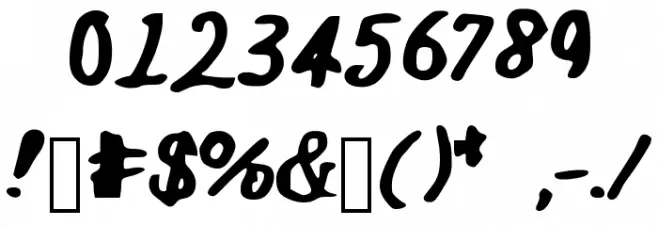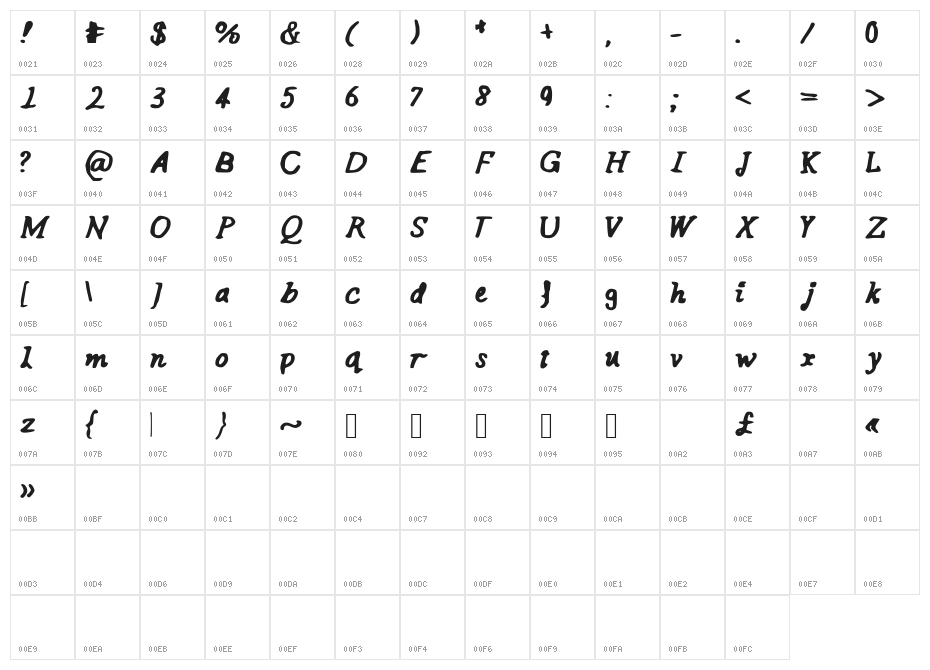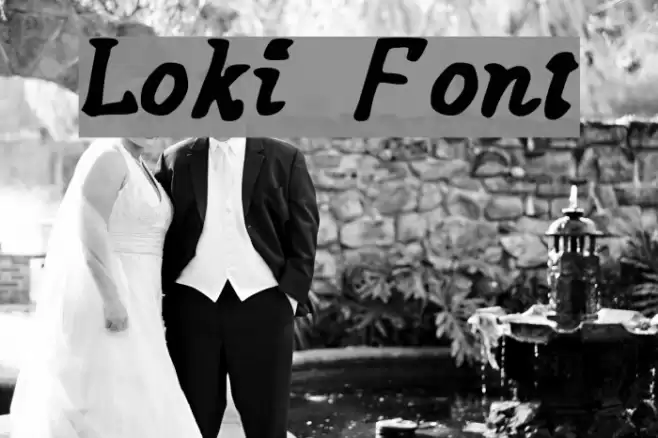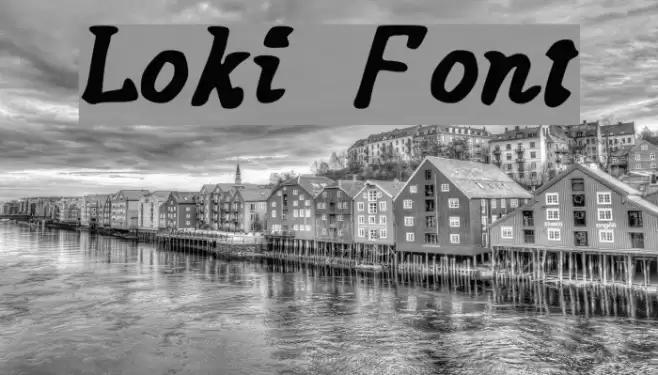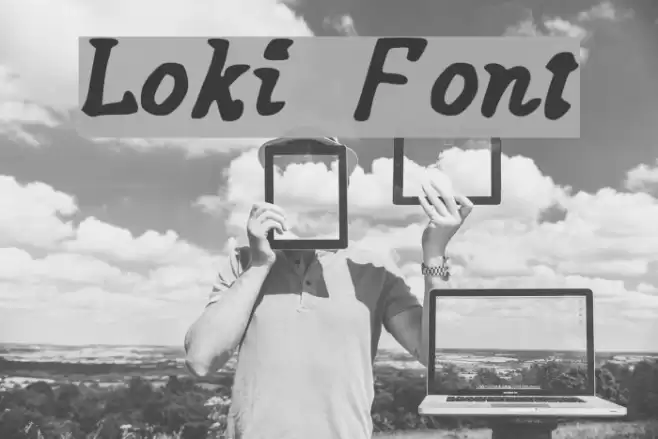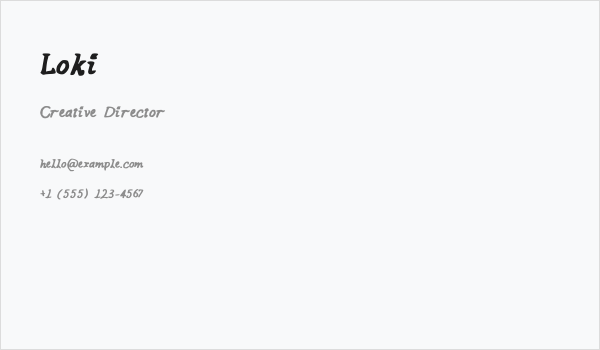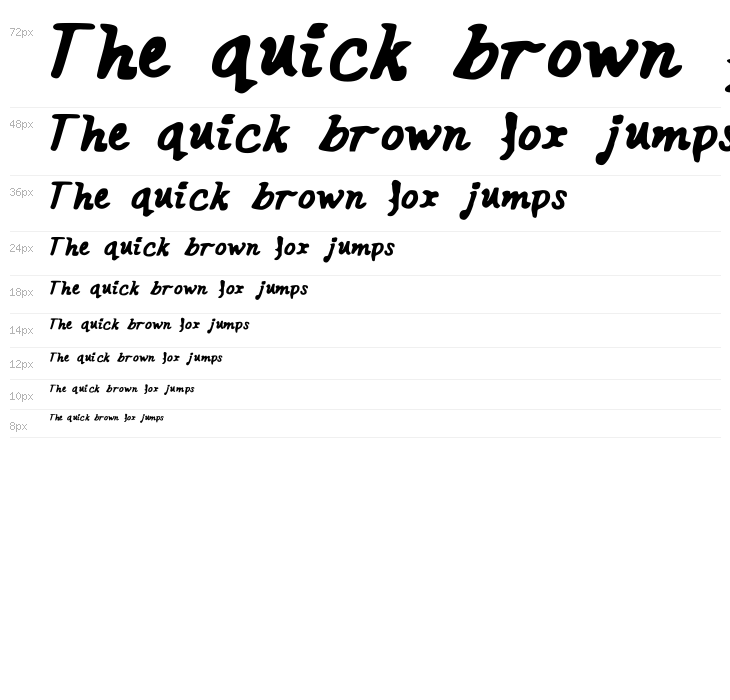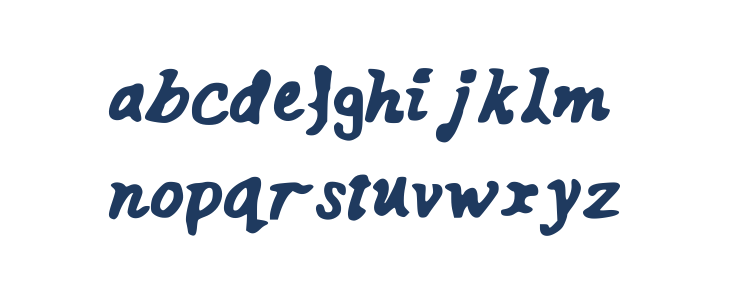
Loki Font
Loki Description
This font features a bold and expressive style with a handwritten appearance. The characters are slightly slanted, giving a dynamic and energetic feel. The strokes are thick and consistent, providing a strong visual impact. The uppercase letters maintain a uniform height, while the lowercase letters exhibit a playful variation in size and shape. The numerals are bold and easily distinguishable, complementing the overall style. Special characters are creatively designed, adding to the font's unique personality. This font is ideal for projects that require a touch of creativity and flair.
| Proposed Projects | Ideal for creative projects such as posters, invitations, and branding materials that require a bold and artistic touch. |